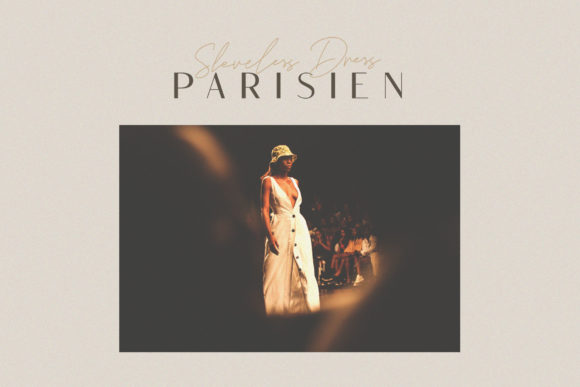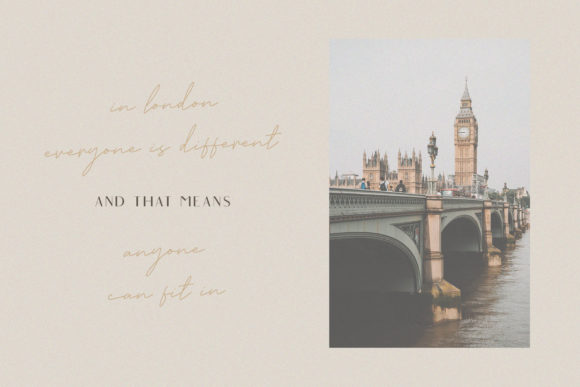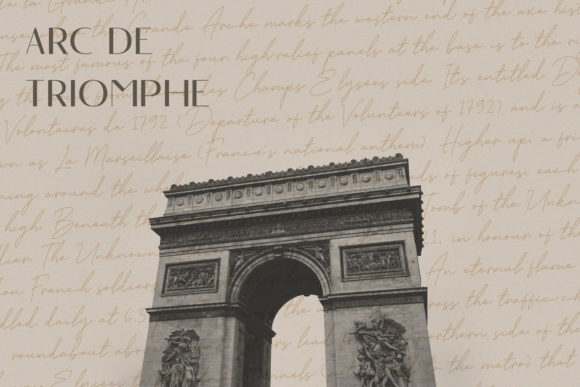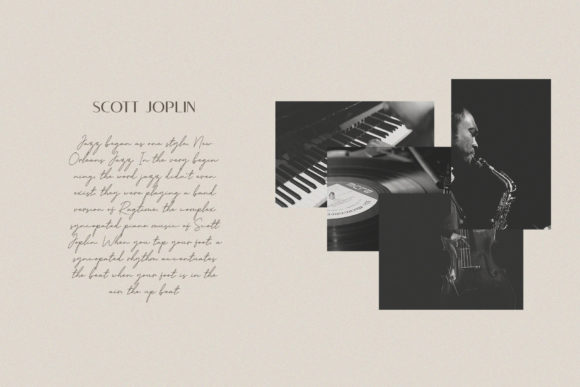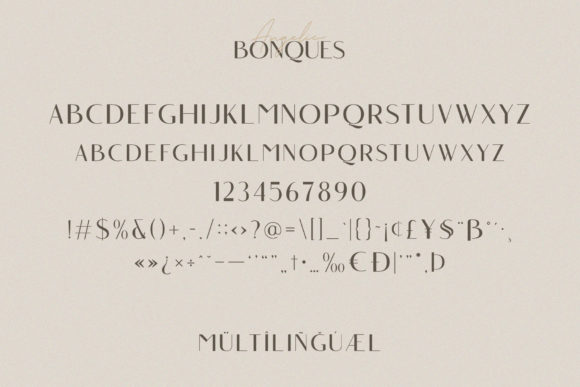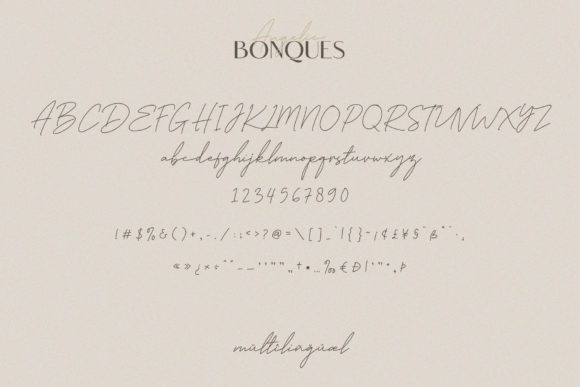
Introducing the Angelic Bonques Trio Font: Elevate Your Design with Romance and Elegance
Are you a designer or crafter looking for a font trio that exudes romance and elegance? Look no further than the Angelic Bonques Trio Font. This beautiful collection of three fonts is designed to add a touch of sophistication and whimsy to any design project, making it perfect for a wide range of applications, from wedding stationery and invitations to branding and packaging.
The Beauty of Angelic Bonques Trio Font
The Angelic Bonques Trio Font is a stunning collection of three complementary fonts that work together in harmony to create a cohesive and visually appealing design. Each font in the trio is carefully crafted to showcase a unique personality, while still maintaining a consistent aesthetic that is both elegant and refined.
The first font in the trio is a beautiful script font, characterized by its flowing curves and delicate connections. This font is perfect for adding a touch of romance and whimsy to your design, and is ideal for use in wedding stationery, invitations, and other formal events.
The second font in the trio is a sleek and modern sans-serif font, designed to provide a clean and crisp contrast to the more ornate script font. This font is perfect for use in headlines, titles, and other design elements where a bold and modern look is desired.
The third font in the trio is a charming and elegant serif font, characterized by its classic lines and refined aesthetic. This font is perfect for use in body text and other design elements where a more traditional and sophisticated look is desired.
Key Features of Angelic Bonques Trio Font
The Angelic Bonques Trio Font offers a range of key features that make it an ideal choice for designers and crafters. Some of the key features of this font trio include:
- Beautiful and elegant design: Each font in the trio is carefully crafted to showcase a unique personality, while still maintaining a consistent aesthetic that is both elegant and refined.
- Romantic and whimsical: The script font in the trio is perfect for adding a touch of romance and whimsy to your design, making it ideal for use in wedding stationery and invitations.
- Versatile: The Angelic Bonques Trio Font is perfect for use in a wide range of design projects, from branding and packaging to wedding stationery and invitations.
Tips and Inspiration for Using Angelic Bonques Trio Font
Here are a few tips and inspiration ideas for using the Angelic Bonques Trio Font in your design projects:
- Use the script font for romantic and whimsical designs: The script font in the trio is perfect for adding a touch of romance and whimsy to your design, making it ideal for use in wedding stationery and invitations.
- Pair the sans-serif font with the script font for contrast: The sleek and modern sans-serif font in the trio provides a clean and crisp contrast to the more ornate script font, making it perfect for use in headlines and titles.
- Use the serif font for body text and other design elements: The charming and elegant serif font in the trio is perfect for use in body text and other design elements where a more traditional and sophisticated look is desired.
Whether you’re a designer or crafter looking for a beautiful and elegant font trio to add a touch of romance and whimsy to your design projects, the Angelic Bonques Trio Font is an excellent choice. With its stunning design, versatile features, and ease of use, this font trio is sure to become a favorite in your design toolkit.